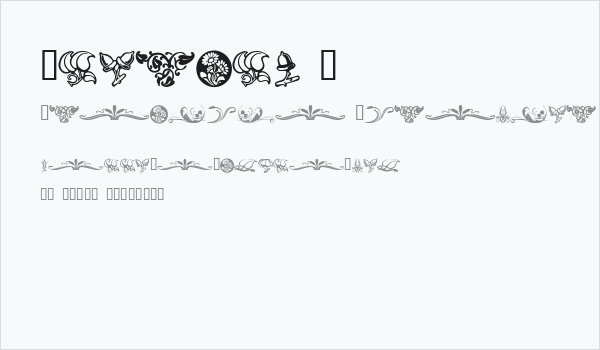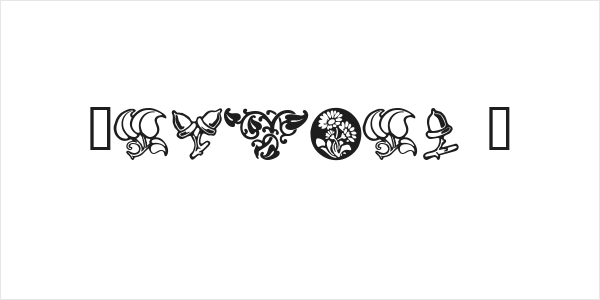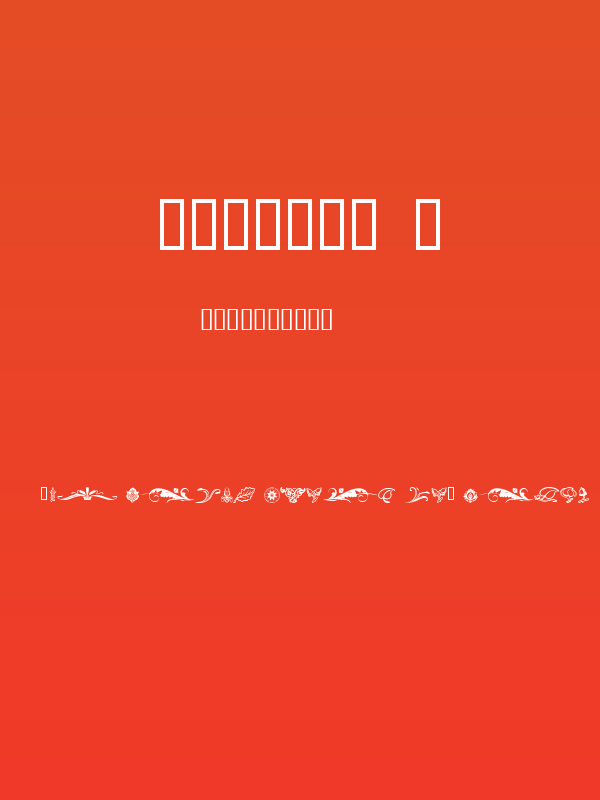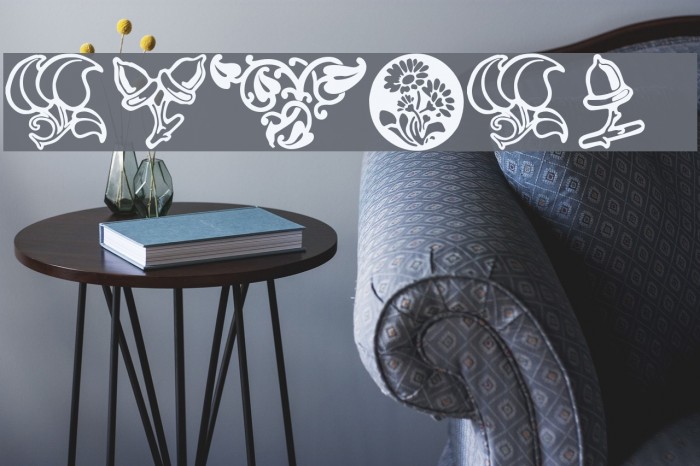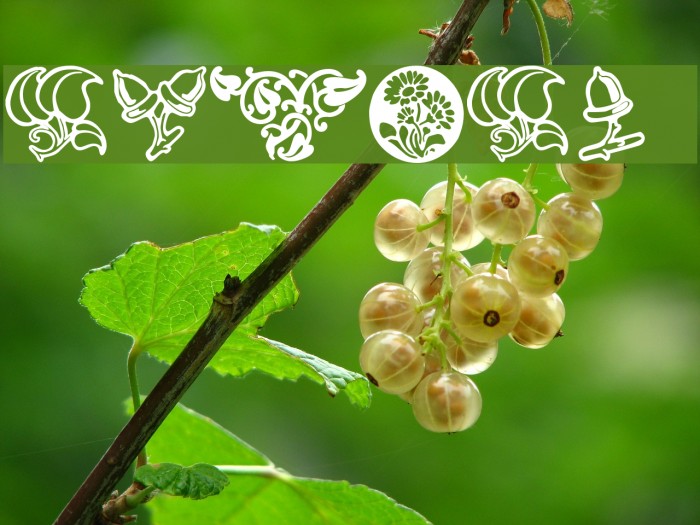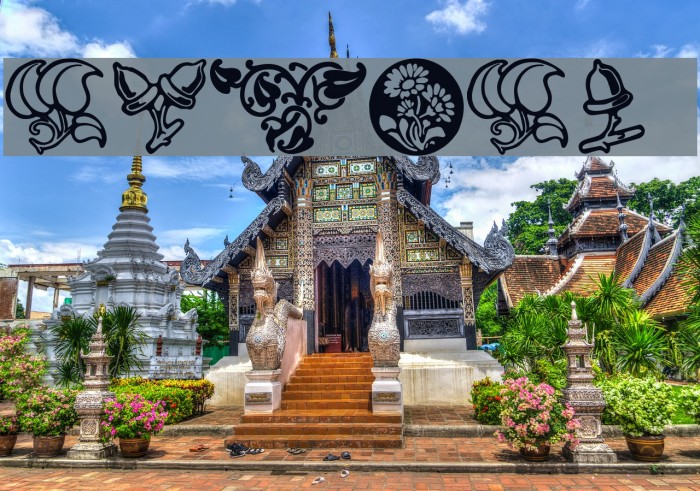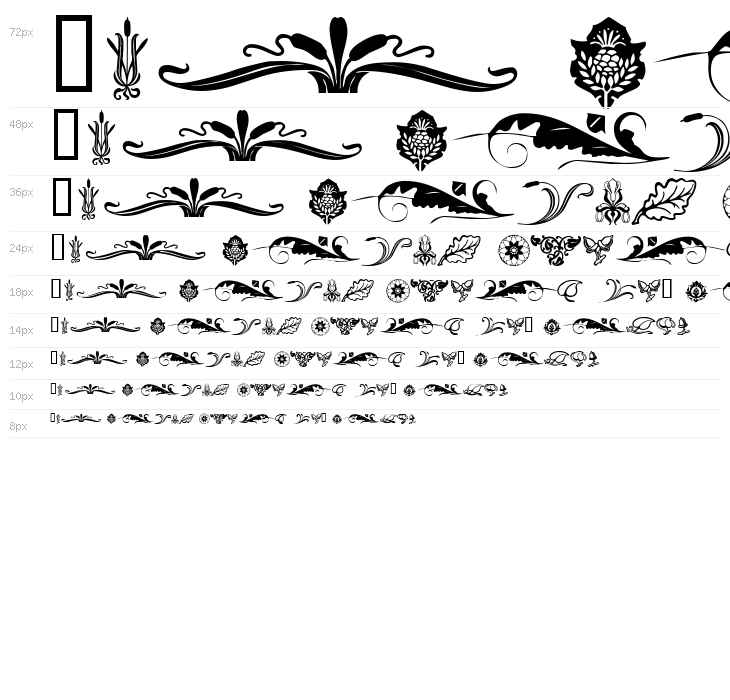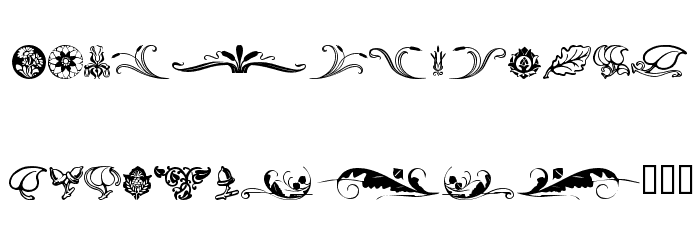
Florals 2 Font
Florals 2 Description
This is not a traditional font but rather a collection of decorative floral elements. The designs feature intricate floral motifs, including flowers, leaves, and ornamental swirls. These elements are highly detailed and can be used to add a decorative touch to various design projects. The collection includes a variety of styles, from simple floral patterns to more complex and ornate designs, making it versatile for different aesthetic needs.
| Use Case | Decorative elements, not suitable for text. |
| Proposed Projects | Ideal for use in invitations, greeting cards, decorative borders, and artistic projects requiring a floral theme. |